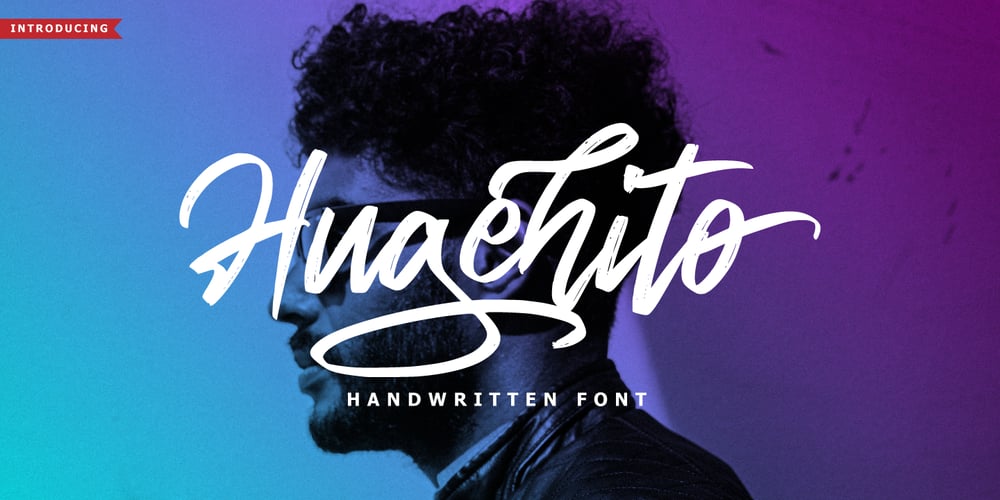
Hugehito Brush Font Family was designed by Ferdiansyah and published by ijemrockart. Hugehito Brush contains 1 styles and family package options. Introducing a lovingly handmade new typeface, Hugehito Brush, a fun and imperfect modern brushed script font with a tough of uniqueness driven. Design like a professional with this typeface that fits perfectly for your wedding invitations, street ads, Instagram posts, t-shirt design, branding, and much more.